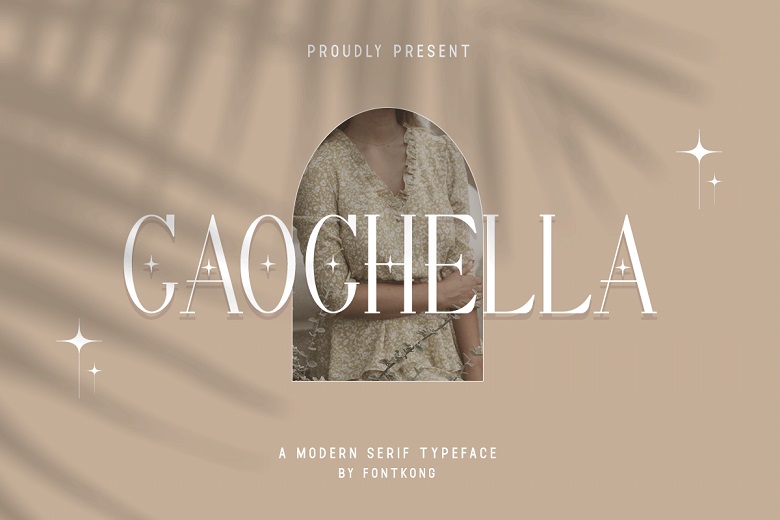
Caochella Font
Now let me present you Caochella Serif Font – the new stylish font that combines the traditions of the serif forms in contemporary typefaces. Caochella is ideal for designing fancy logos, chic brands’ identities, classy layouts of editorial products, as well as opulent packaging designs. This font is well proportioned with neatly shaped letters and it gives a professional look to every single project done with it.
If you are working on fashion projects or fashion weddings as well as any luxury brands, Caochella Serif Font has all these benefits and can be a great pick for your next project. This font is PUA encoded, so all cute glyphs and swashes are open for you and won’t cause any troubles!